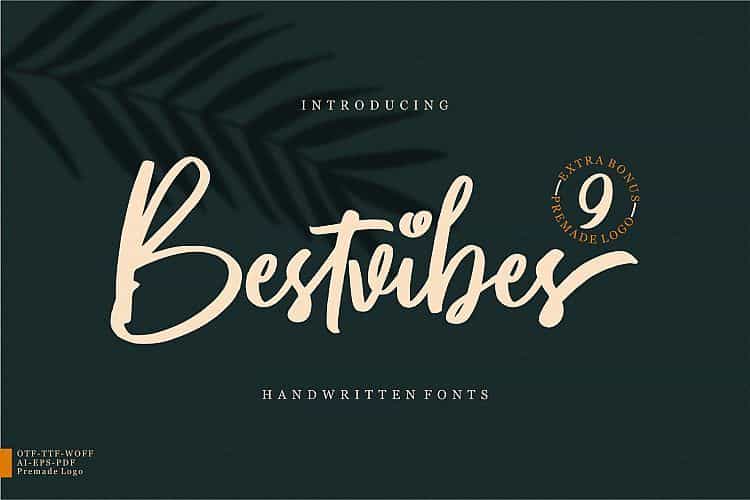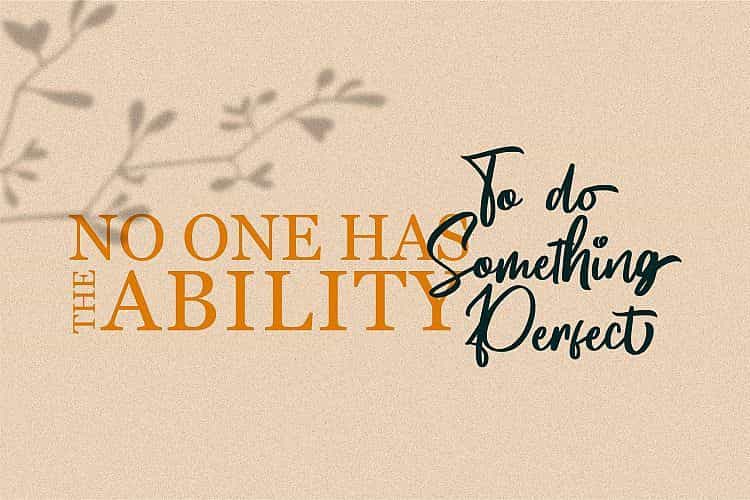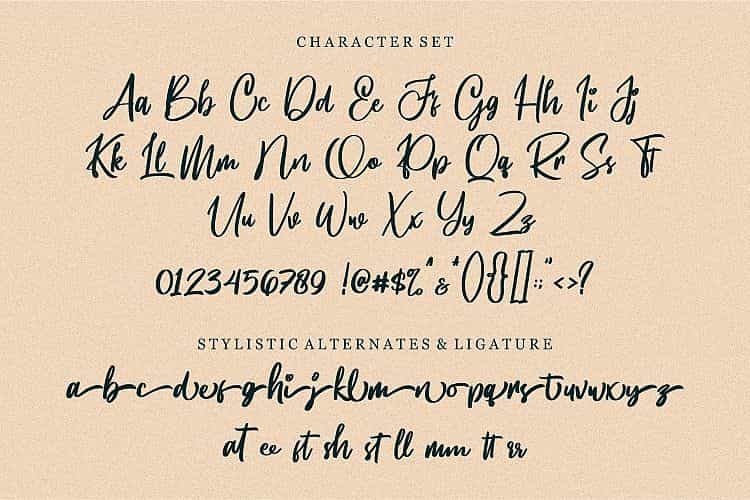
Discover Bestvibes Script Font, part of the Brush Handwritten collection—a versatile and unique font perfect for adding a personal touch to your projects. Download it for free and enjoy crafting designs with style, from invitations to social media posts. This font is available exclusively for personal use, giving you the freedom to create without limits. Unlock your creativity with Bestvibes Script Font today!
Introducing Bestvibes Font! Good Java Studio created and posted Bestvibes. Bestvibes Script Font is a natural handwritten font, its use Is unlimited. It can be used for the logo, invitation, stationery design, wedding designs and also social media posts. In addition to that it could be perfect for advertisements or product packaging as well as product designs and labels. NoSuch occasion will go without this unique font! Bestvibes includes the whole set of uppercase and lowercase letters, numerals, punctuation.